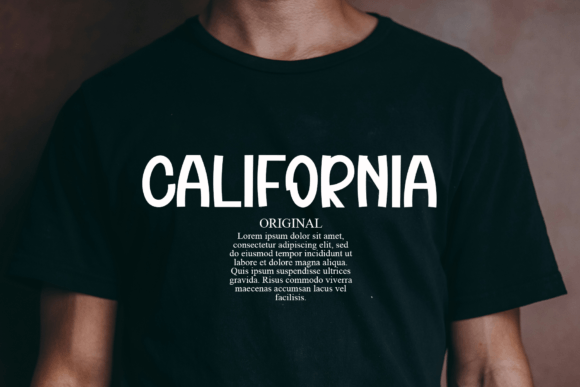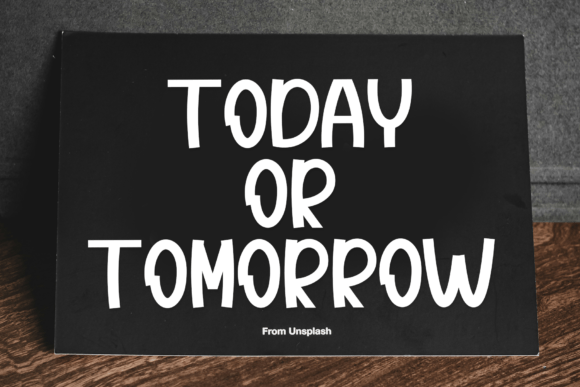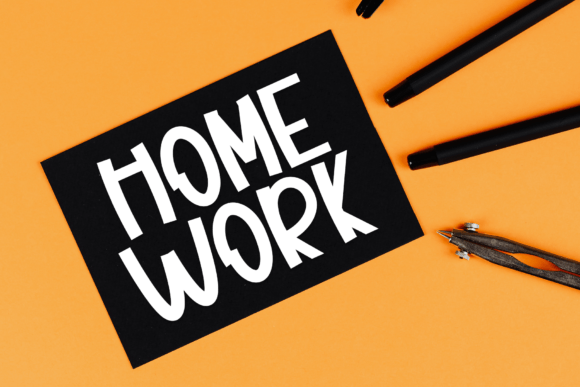
Introduction to Smoke Black Font
Smoke Black is a charming handwritten font imbued with a sense of freshness and casual elegance.
Its fluid strokes and organic lines evoke a laid-back vibe, making it perfect for various design projects Whether used for branding, invitations, or social media graphics, Angela adds a touch of warmth and personality.
Key Features of Smoke Black Font
Why Choose Smoke Black Font?